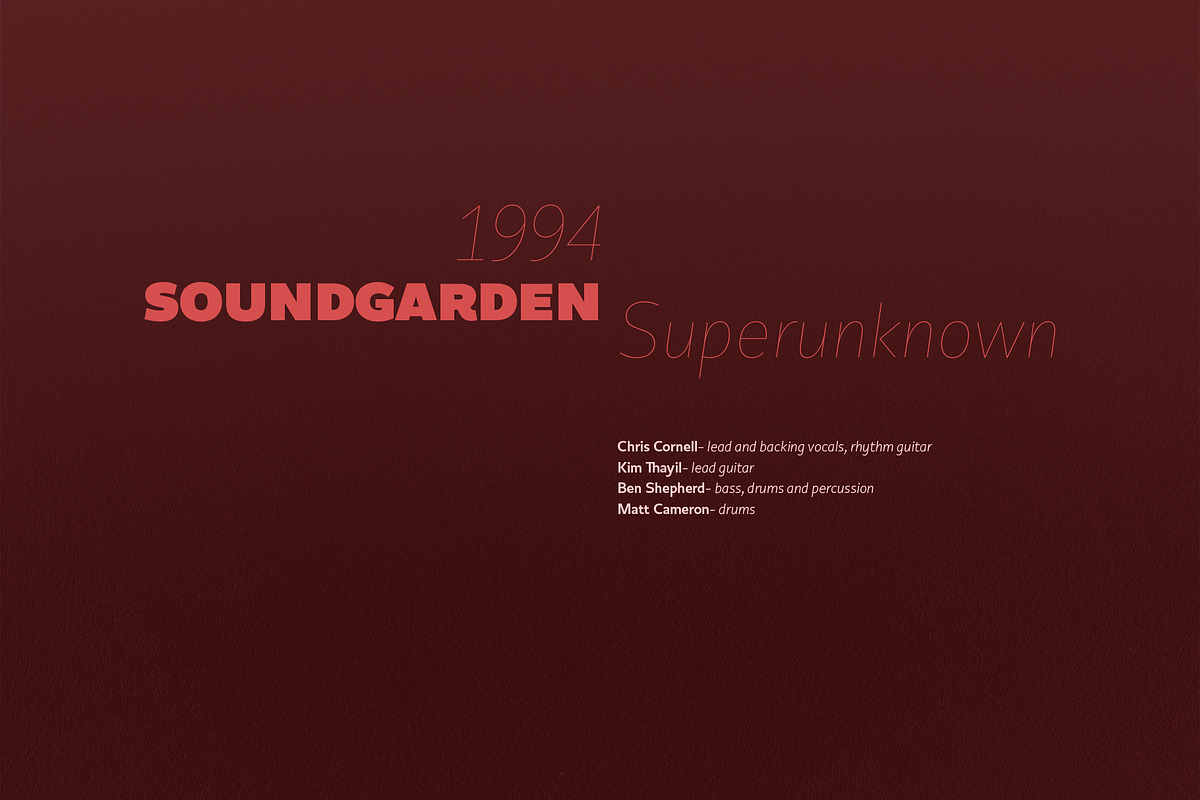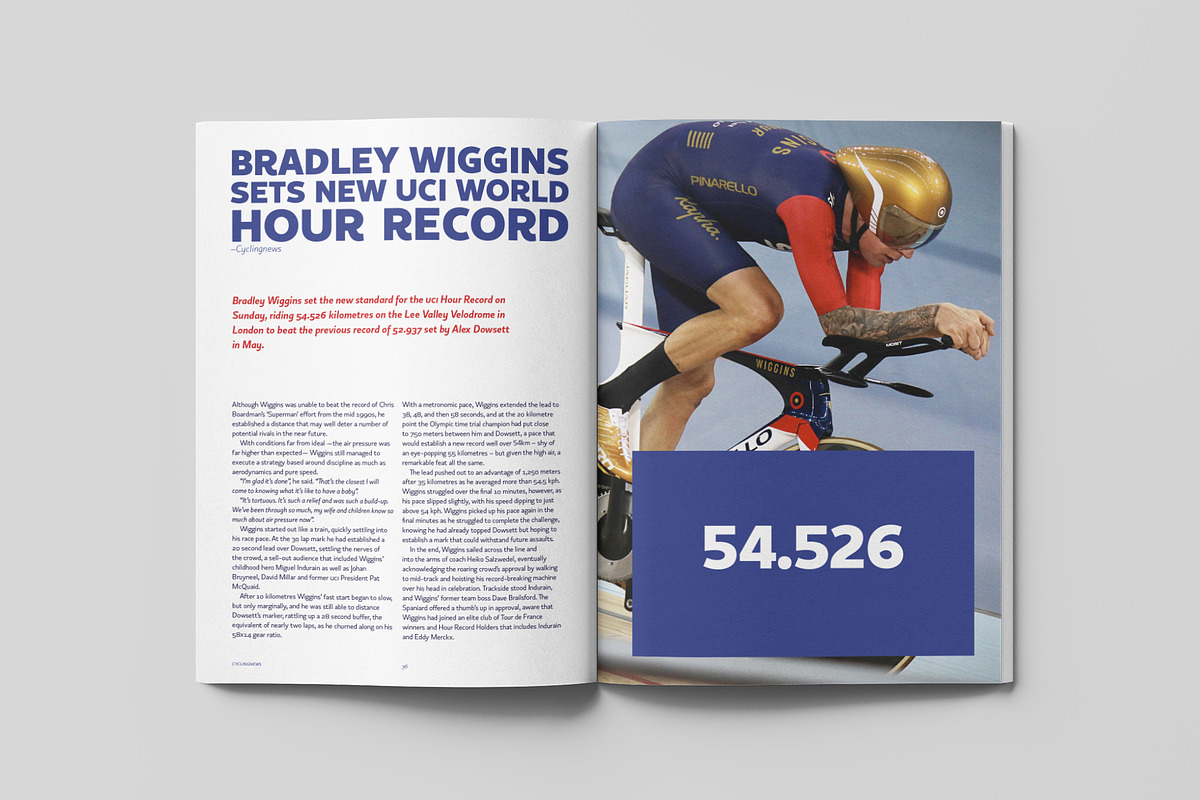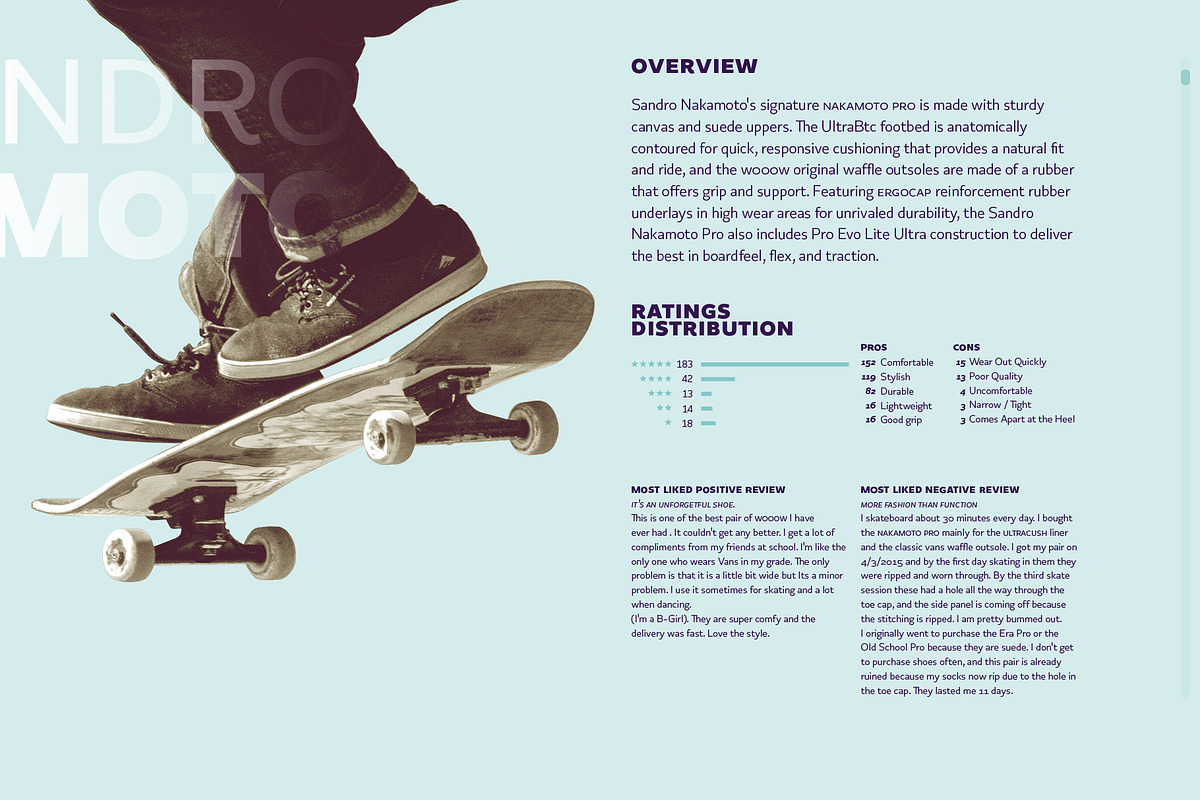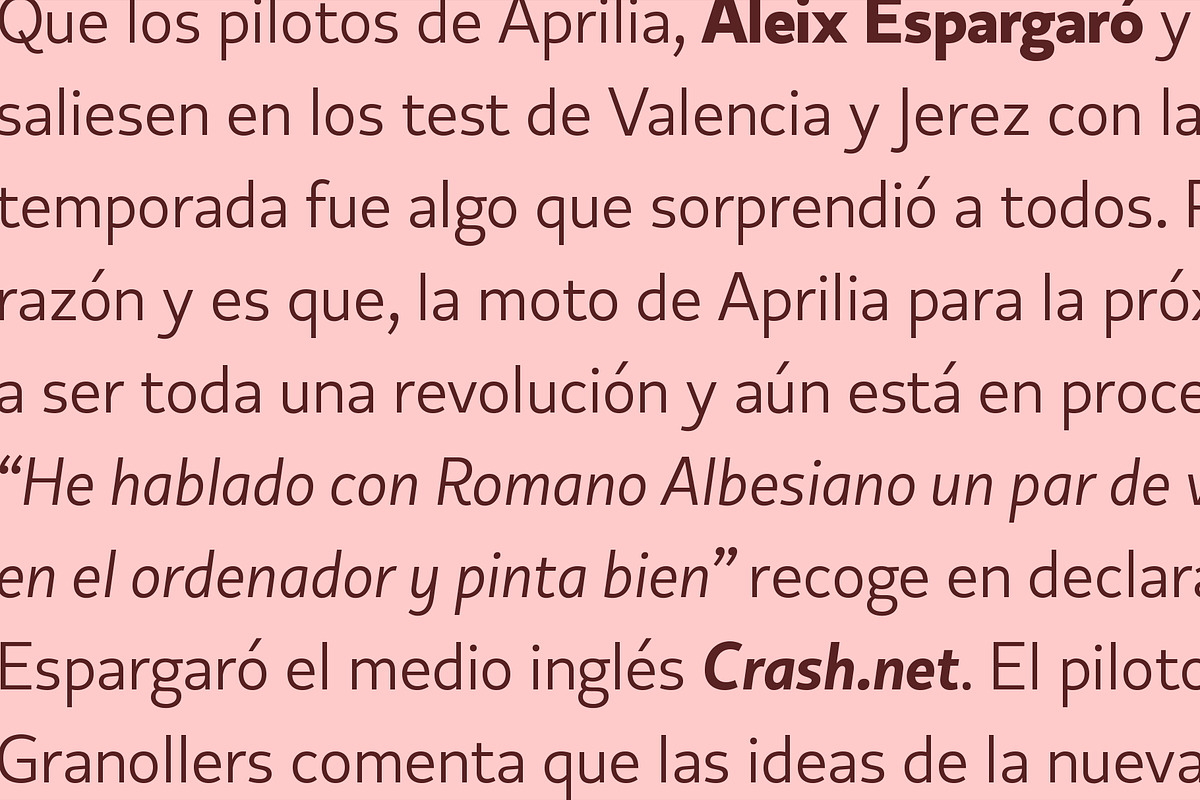
Copihue
Copihue is the newest font from the foundry of Juan Pablo De Gregorio. A Sans-Serif with some humanist hints, it displays simple and subtle yet sober, vivid strokes. This font’s personality unfolds itself as long as we are reading it.
The aim of Copihue is neither to be as neutral as a grotesque font nor to become as predictable as a fully geometric typeface can be. This typography wants to appeal to the likes of designers who prefer all-rounder fonts, the ones who fit well in most layouts. With this purpose in mind, Juan Pablo studied elements of different typefaces and styles to cast them into Copihue, which boasts a personality that makes it a great fit for different compositions and designs.
Copihue has a slanted version with "real italics". These italics are slightly more condensed than the regular version, in order to give it a different text texture.
The typeface has 9 weights, ranging from “hair” to “black”, and two versions: "regular" and "italic". Its 18 files contain 749 characters with ligatures, alternates, small caps, oldstyle and tabular numbers, fractions, and case sensitive figures. It supports 219 Latin-based languages, spanning through 212 different countries.